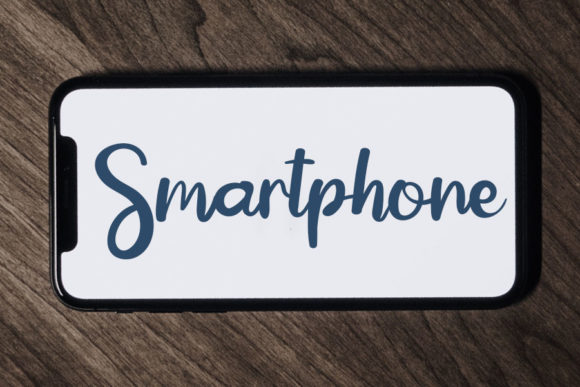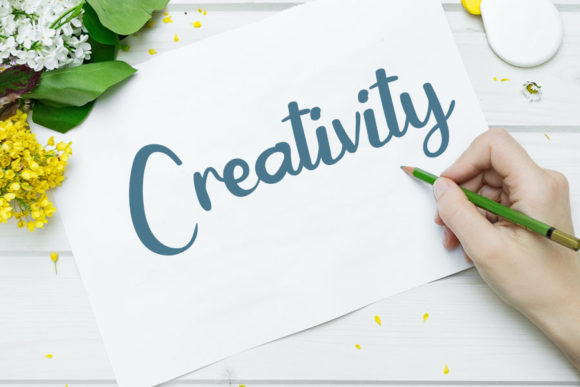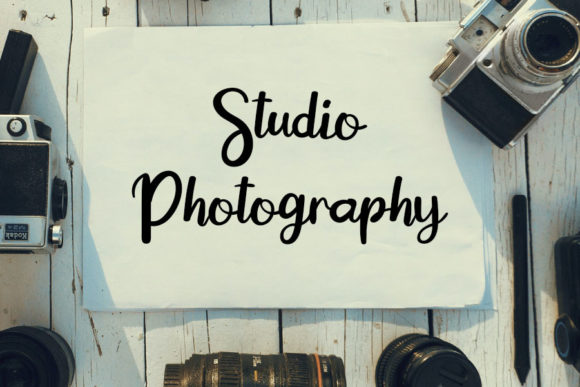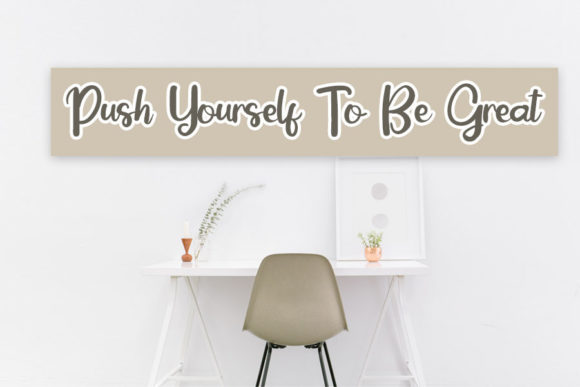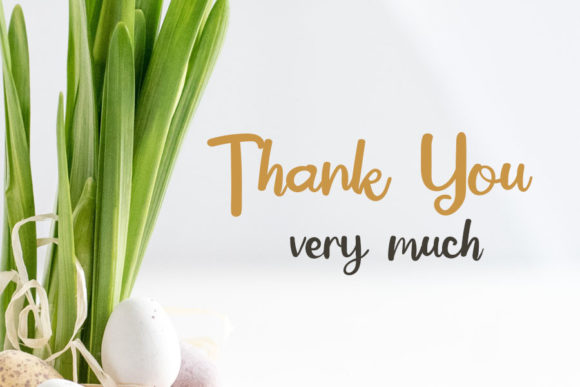
The Designer’s Delight: A Deep Dive into the Done Font
I’ll never forget the time I was working on a wedding invitation project, and my client asked for a font that was ” elegant, yet playful, and not too over-the-top.” I scoured the internet, tried countless fonts, but nothing seemed quite right. That was until I stumbled upon the Done Font. ✨
Its modern, delicate, and incredibly beautiful handwritten style instantly won me over. I knew right then and there that I had found the perfect fit for my project. And today, I’m excited to share my love for this gorgeous font with you! 💕
An Honest Review of Done Font
- ✨ Authentic feel: The Done Font has an undeniably genuine, handcrafted quality that makes it perfect for projects that require a personal touch.
- ✅ Versatility: Whether you’re designing wedding invitations, social media posts, or greeting cards, this font adapts seamlessly to any style or theme.
- 💫 Aesthetic appeal: The font’s delicate lines, subtle curves, and elegant spacing make it a true showstopper.
While the Done Font is an exceptional choice, there are a few minor things to keep in mind: 🤔
- ⚠️ Legibility at small sizes: As with many handwritten fonts, the Done Font may become less legible when used at very small sizes (below 10pt). Be sure to test it thoroughly in your design.
- ⚠️ Limited availability of variations: Currently, the Done Font comes in a single style, which might limit its use in projects requiring multiple font variations.
One of the standout features of the Done Font is its support for OpenType features and glyphs. This allows designers to access a range of stylistic alternates, swashes, and other typographic goodies. To access these features:
The Story Behind Done Font
While I couldn’t find any information on the exact origins of the Done Font, it’s clear that its designer was inspired by the beauty of handwritten typography. With its delicate lines and elegant curves, this font embodies the perfect blend of modernity and classic charm.
Q: What type of projects is the Done Font best suited for?
A: The Done Font is versatile and can be used for a wide range of projects, including wedding invitations, social media posts, greeting cards, and more.